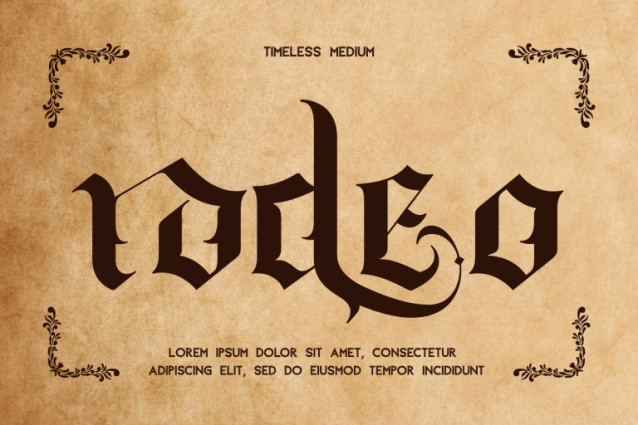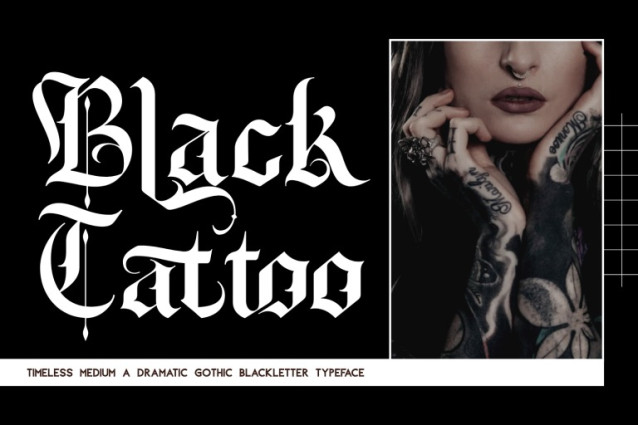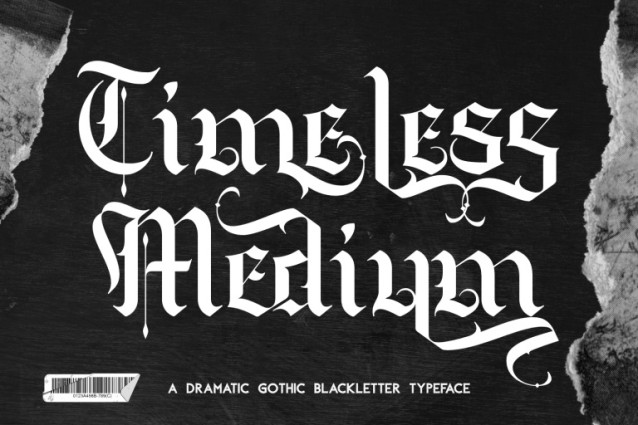
Timeless Medium Font
Timeless Medium – Blackletter Font – Bold Medieval Blackletter Typeface, s a powerful and dramatic blackletter font inspired by medieval calligraphy and Gothic traditions. Its sharp angular strokes, pointed serifs, and ornamental flourishes echo the visual culture of ancient manuscripts, religious scripts, and heraldic emblems. Blending history with modern usability, Timeless Medium brings timeless elegance to any design — from heavy metal album covers and tattoo studios to vintage posters and dark-themed branding.
Uppercase & Lowercase Letters
100+ Unique Ligatures and Alternate Characters
Sharp, Geometric Letterforms with Elegant Curves
Perfect for Gothic, Medieval, Dark Fantasy, or Vintage Themes
🔤 About 100 ligatures combined with Stylistic Alternates Font: